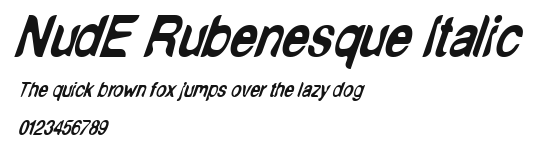
NudE Rubenesque Italic Preview
• Font Name: NudE Rubenesque Italic
• Full Font Name: NudE Rubenesque Italic
• PostScript Name: NudERubenesqueItalic
About NudE Rubenesque Italic.ttf
NudE Rubenesque Italic.ttf is a modern, elegant sans-serif font designed for ultimate readability and visual harmony. Perfect for branding, headlines, web design, and print materials.